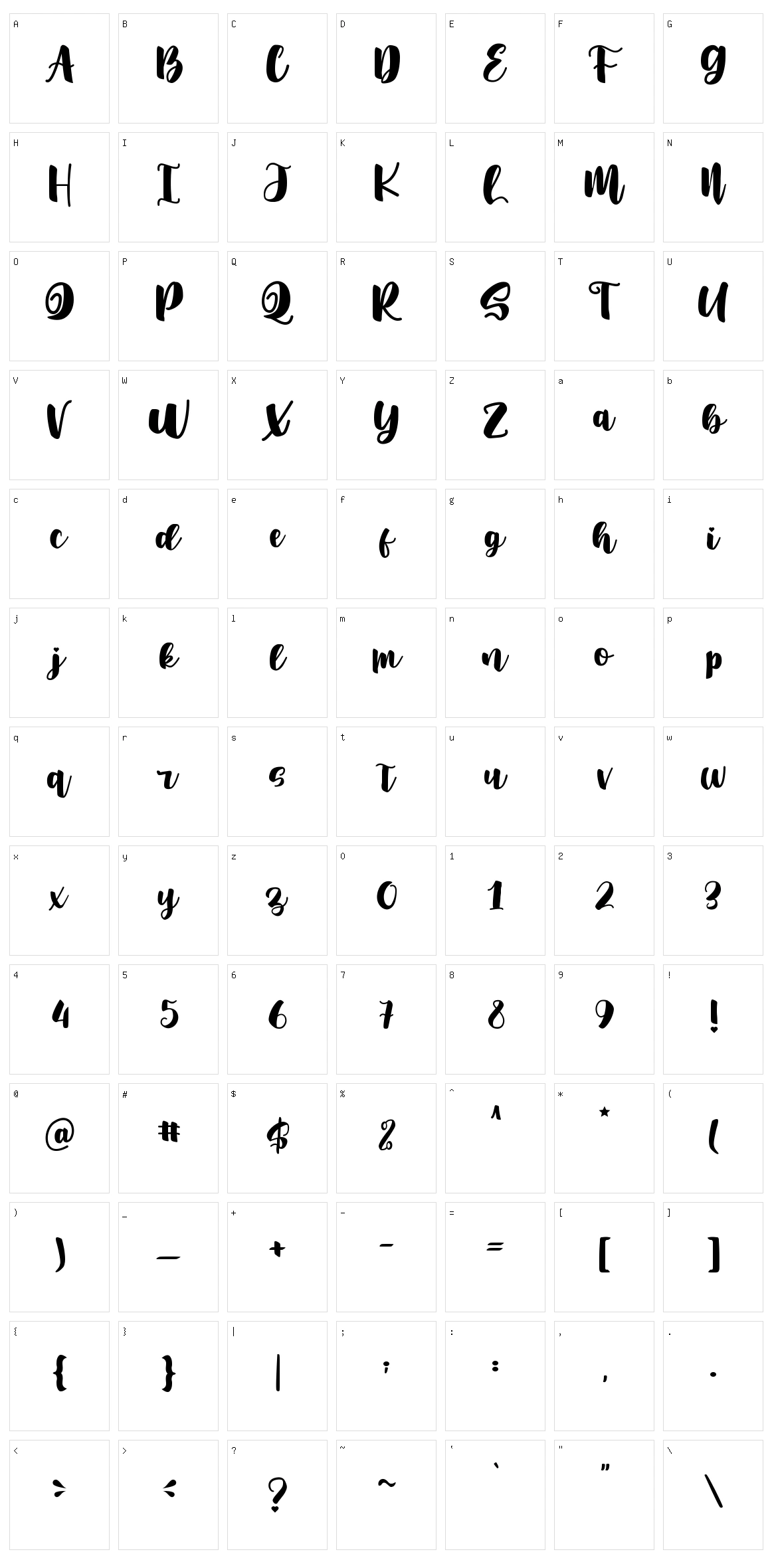
Rainbow Kitty is a magical script font carefully created with a touch of elegance. Whether youâre looking for fonts for Instagram or calligraphy scripts for DIY projects, this font will turn any creative idea into a true piece of art!